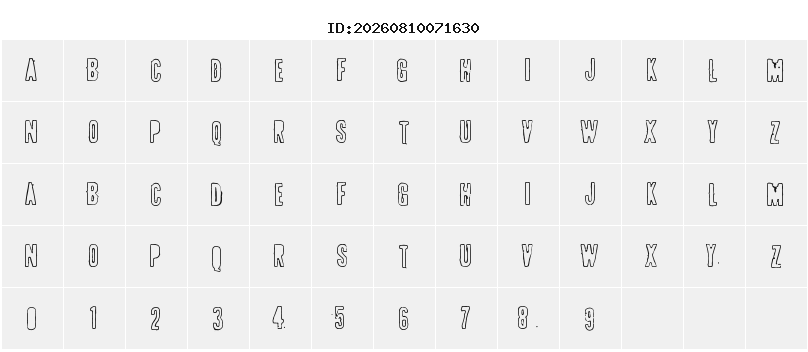
POLLUX9401 Preview
About POLLUX9401.ttf
POLLUX9401.ttf is a modern, elegant sans-serif font designed for ultimate readability and visual harmony. Perfect for branding, headlines, web design, and print materials.